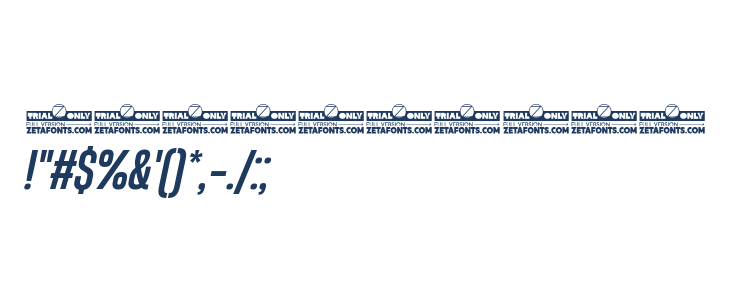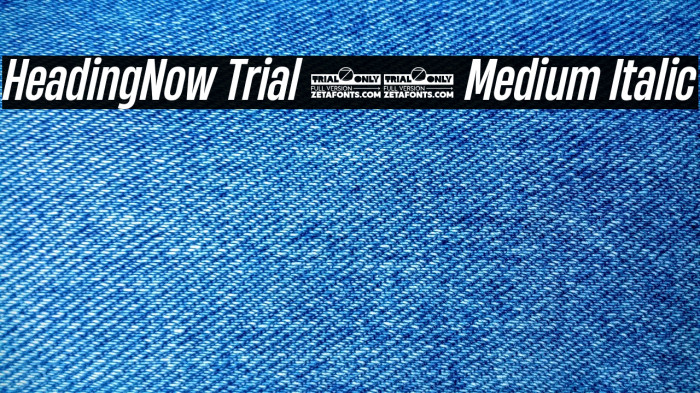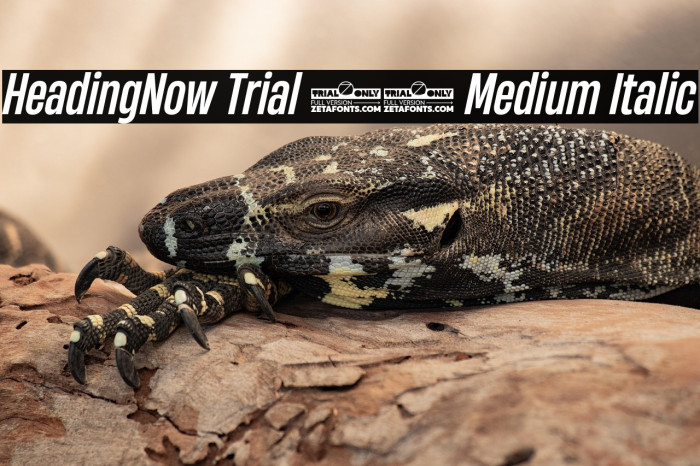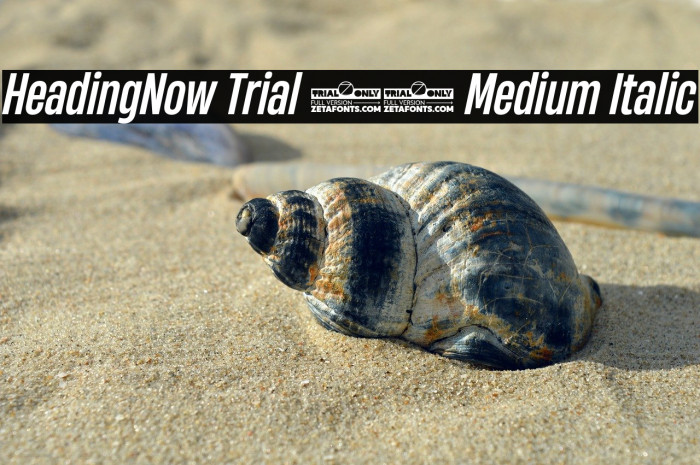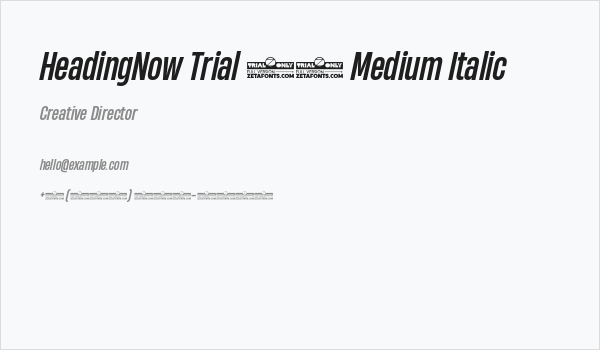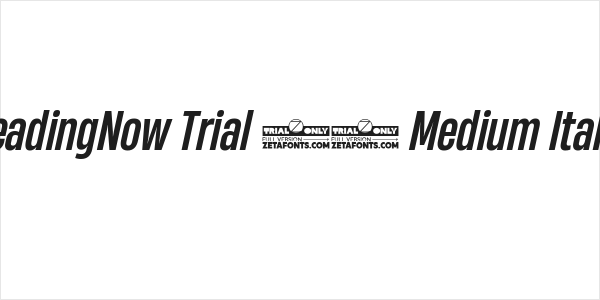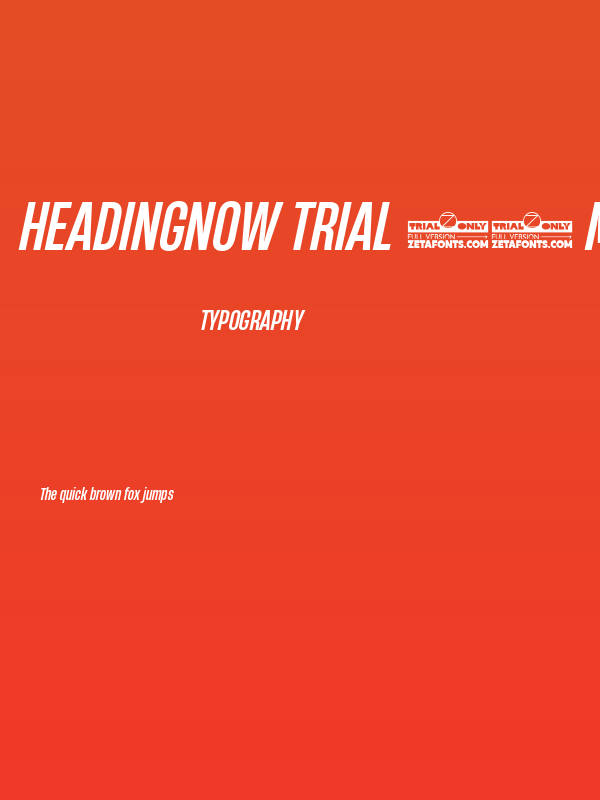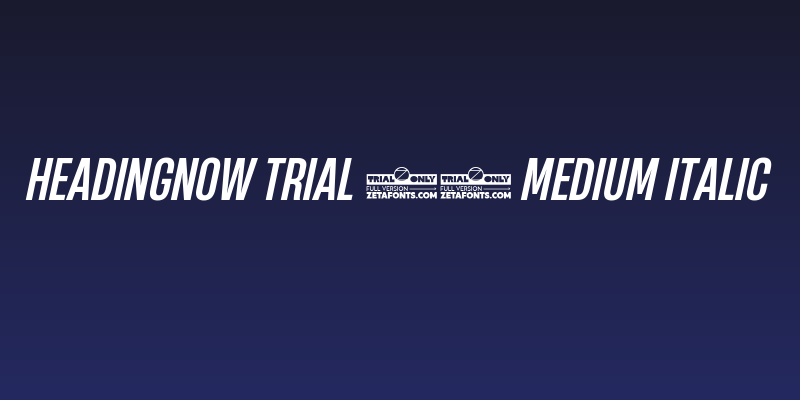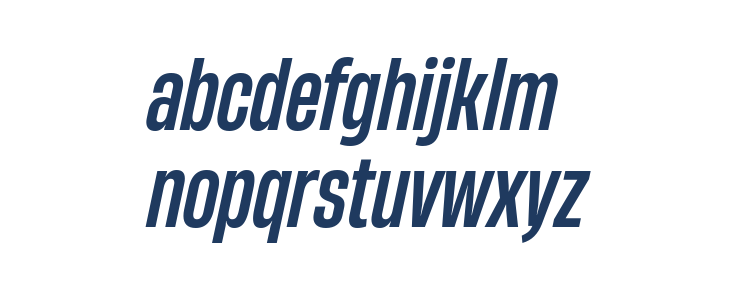
HeadingNow Trial 45 Medium Italic Font
HeadingNow Trial 45 Medium Italic Description
This font exhibits a bold and dynamic presence, characterized by its italicized and slightly condensed letterforms. The uppercase and lowercase letters maintain a consistent stroke width, contributing to a uniform appearance. The slanted style adds a sense of movement and modernity, making it suitable for attention-grabbing headlines. The numerals and special characters are designed to match the overall aesthetic, ensuring visual harmony across different text elements. The font's clean lines and contemporary feel make it versatile for various design applications.